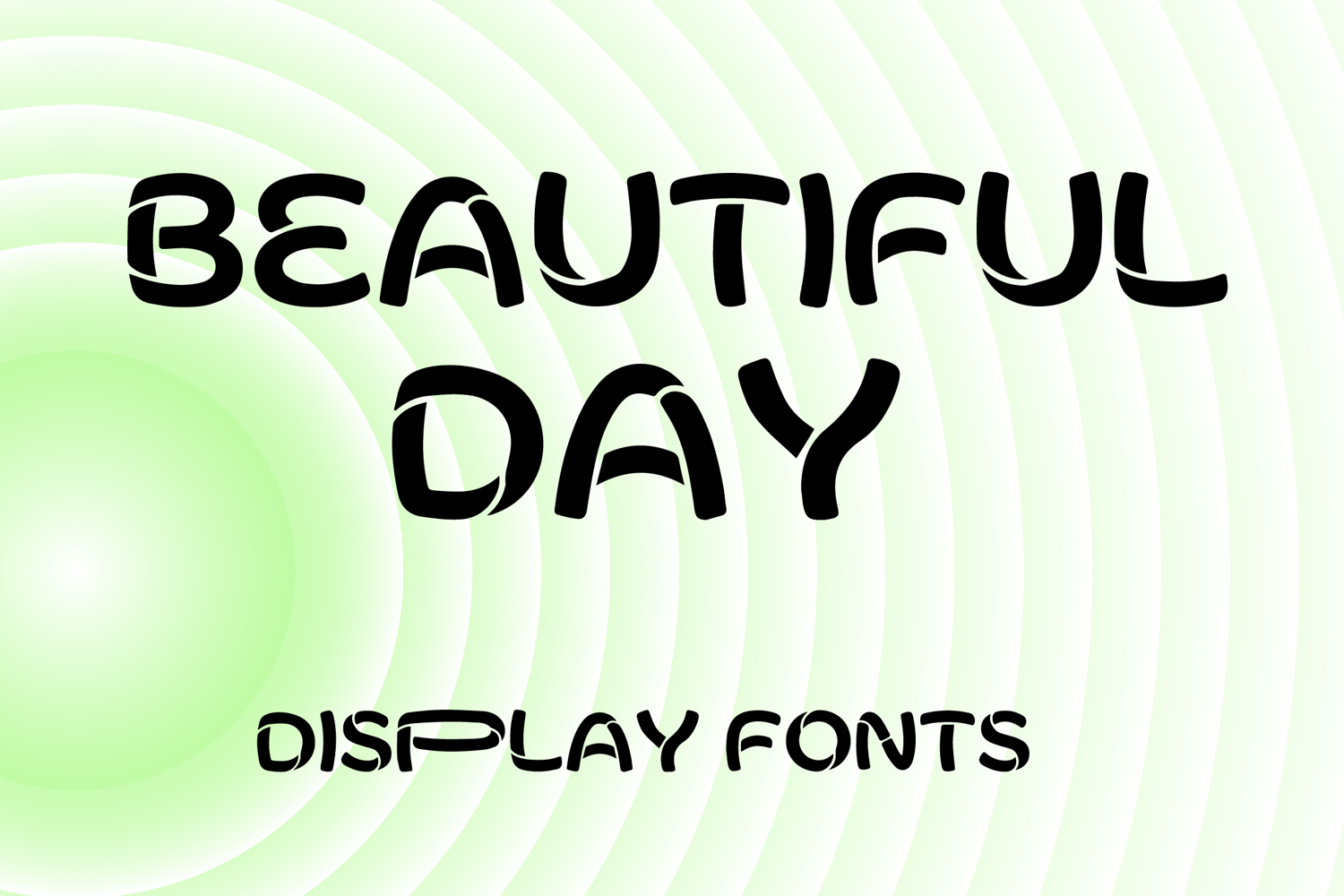
BEAUTIFUL DAY
BEAUTIFUL DAY is a playful display font with a bold handcrafted style and cheerful modern charm. Its uppercase letterforms feature rounded strokes, soft cutout details, and slightly quirky shapes that create a fun, friendly, and eye-catching look. Designed with uppercase letters A–Z and numbers 0–9, BEAUTIFUL DAY is perfect for branding, posters, packaging, invitations, logos, social media graphics, and creative projects that need a joyful and memorable statement.